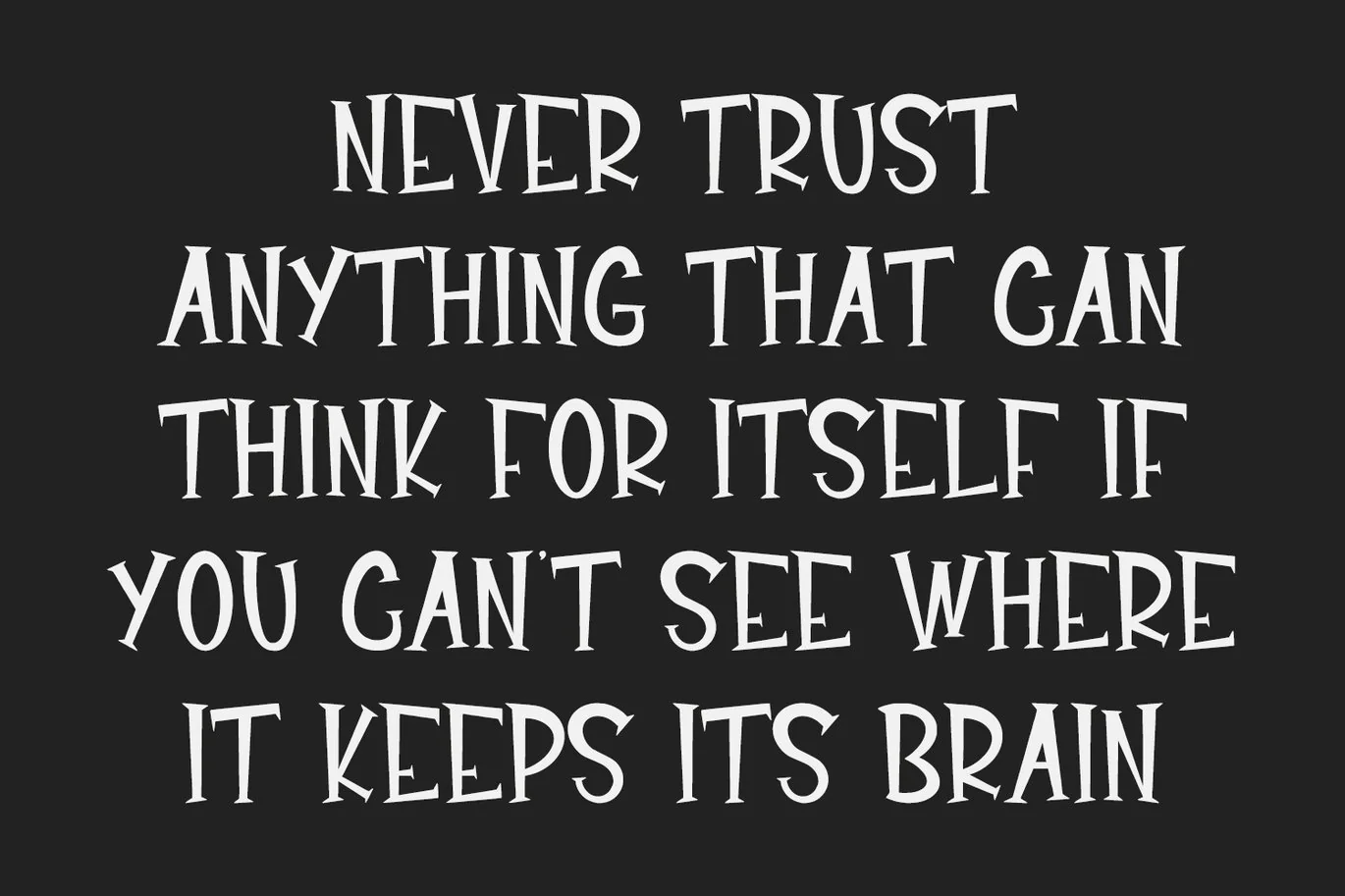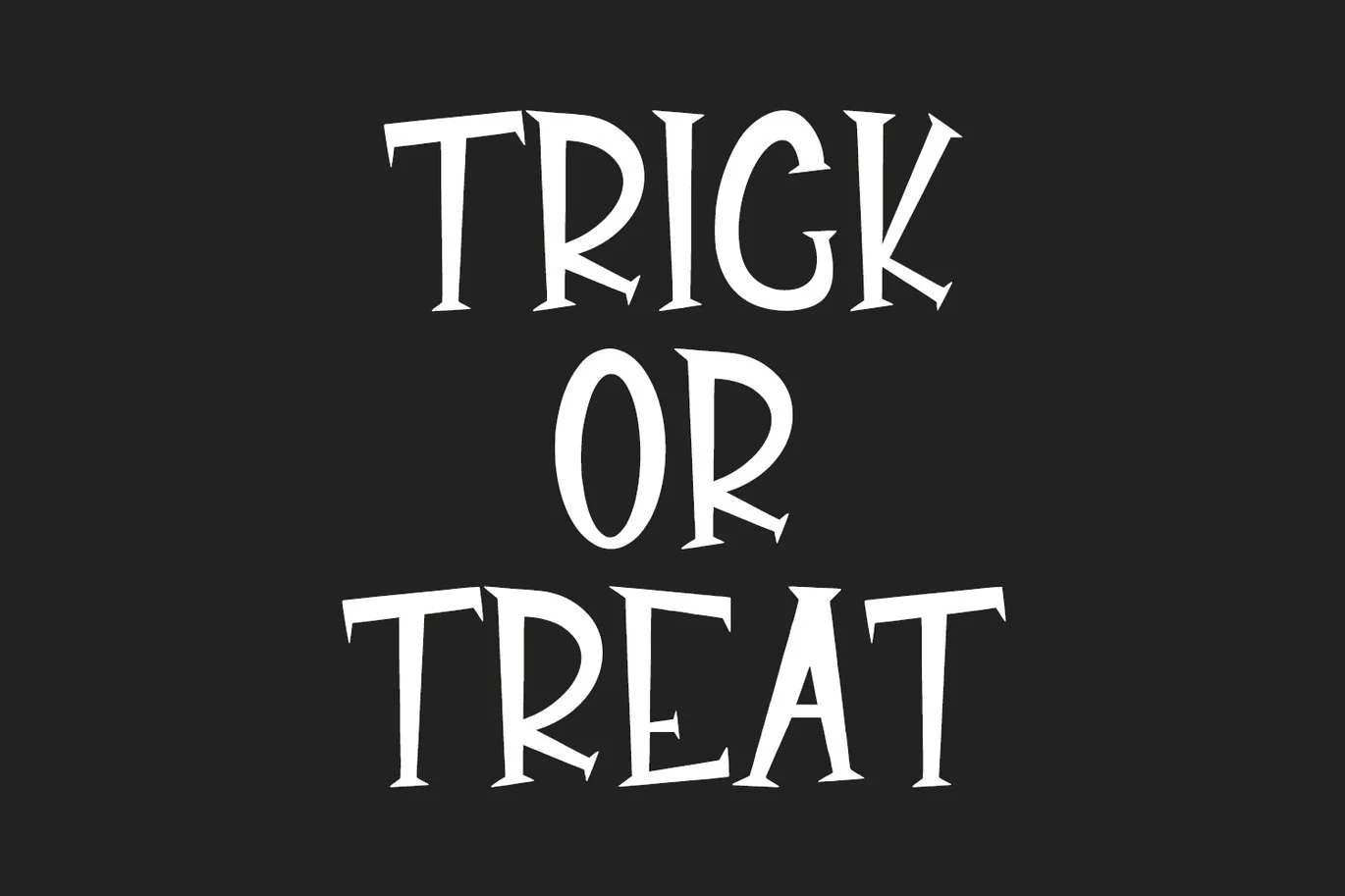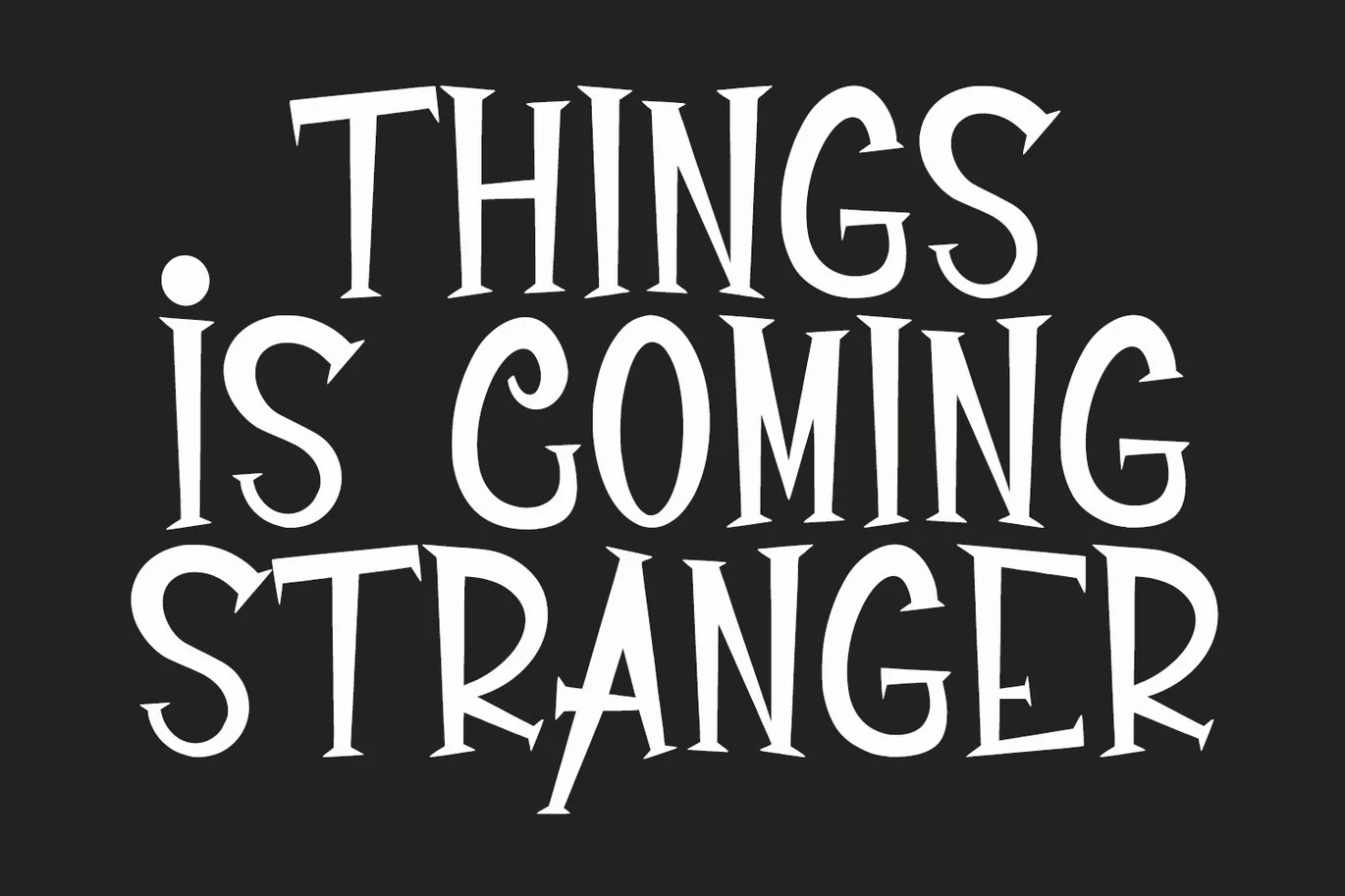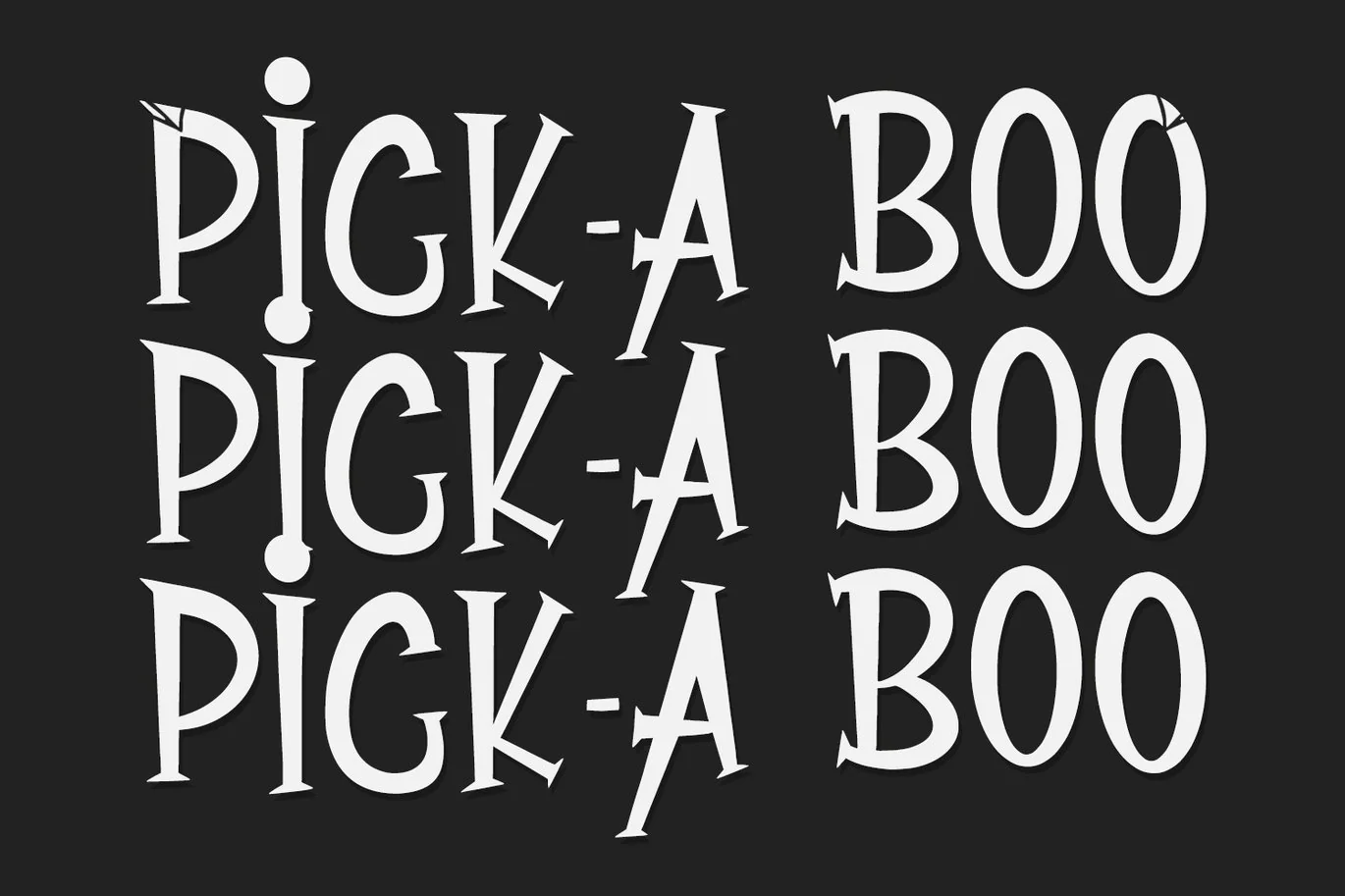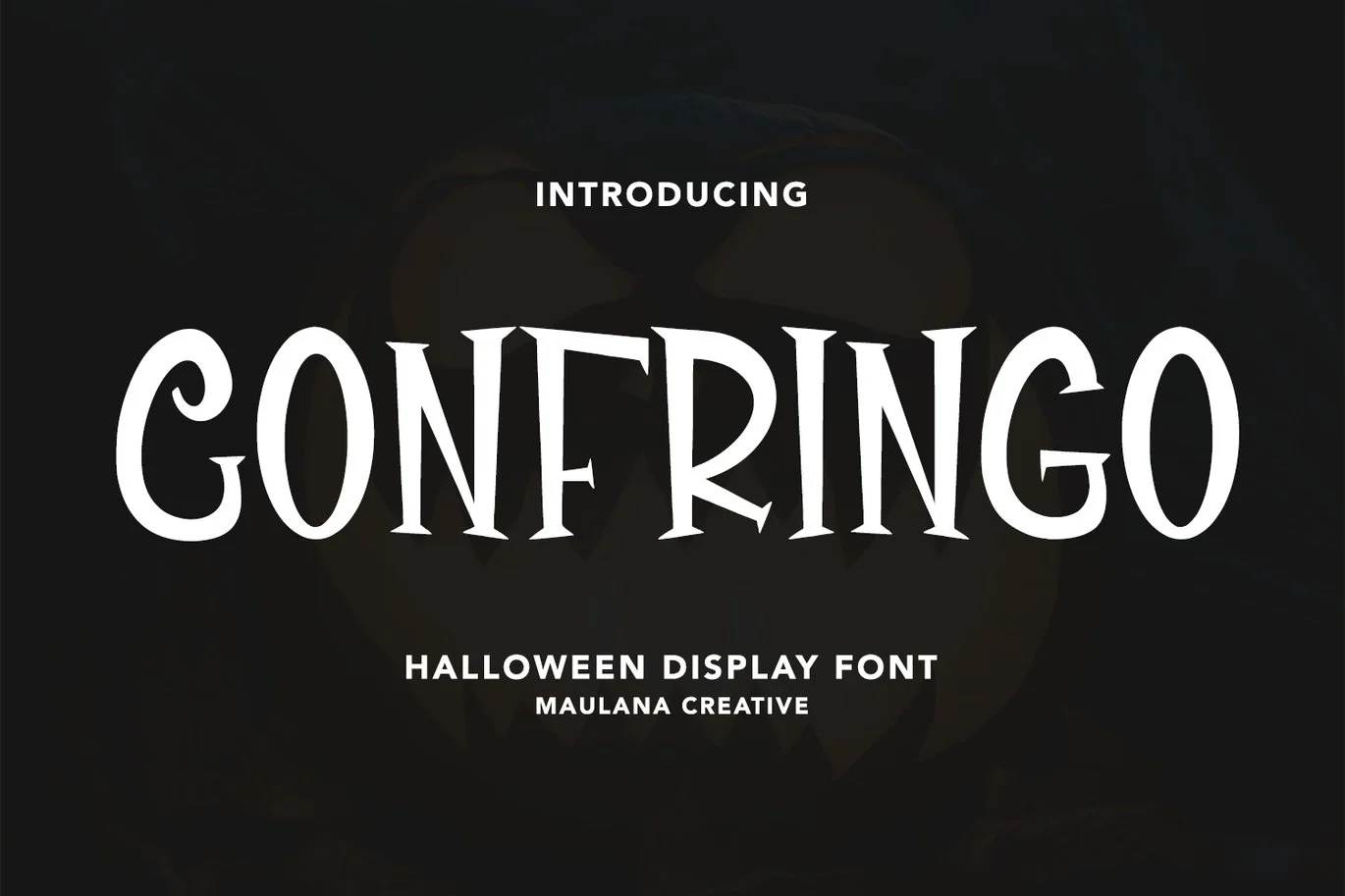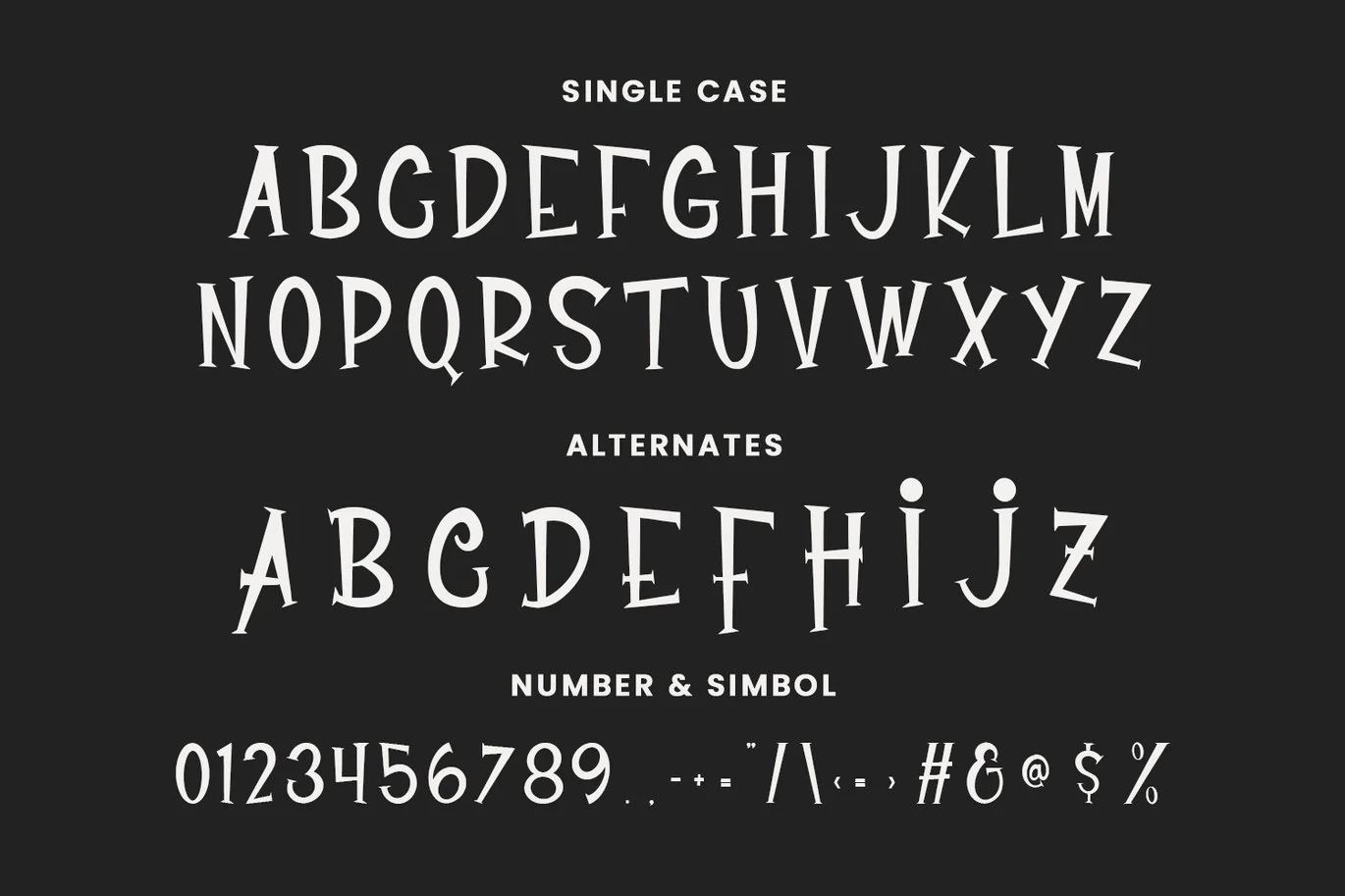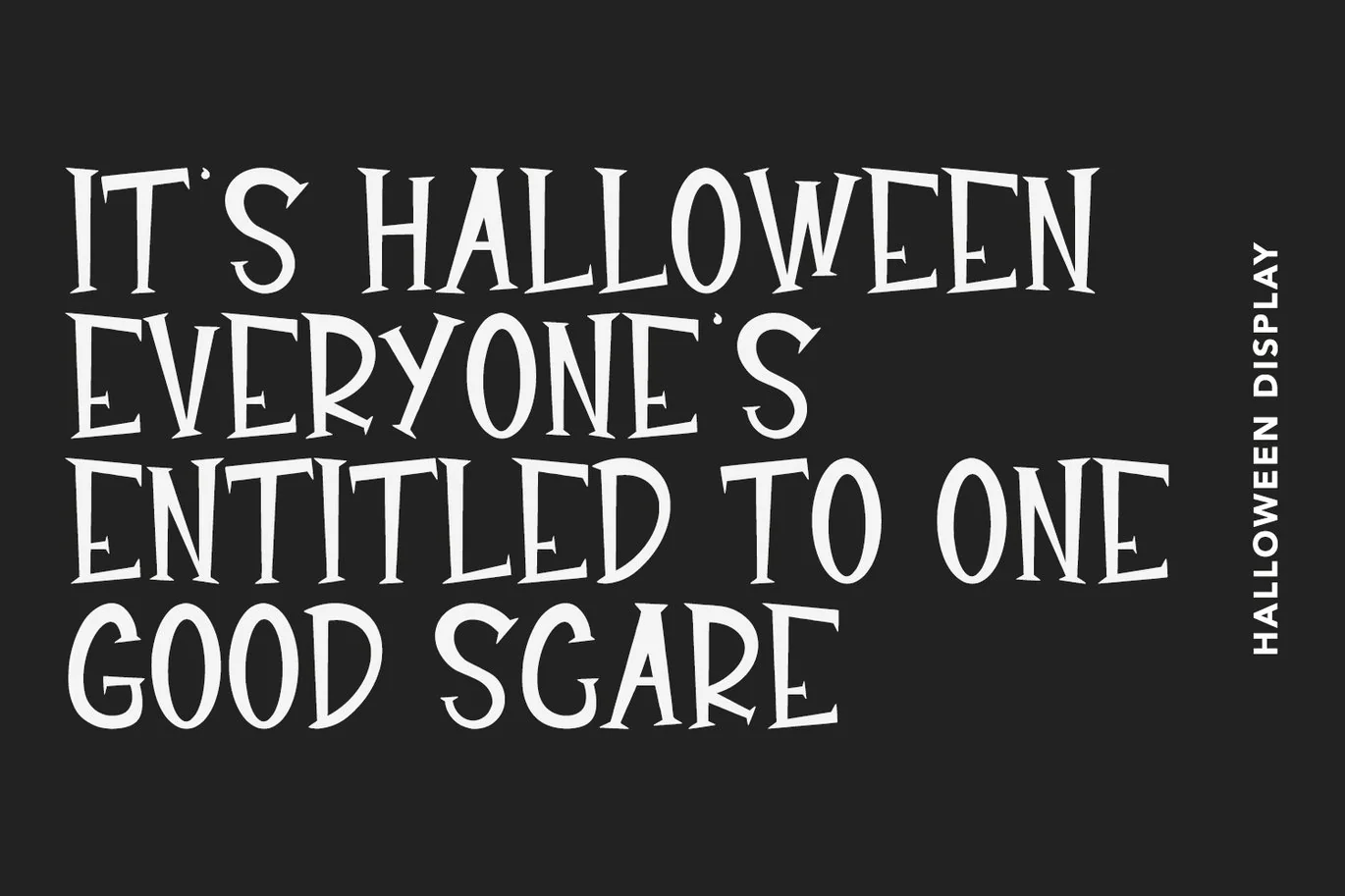
Confringo Halloween Display Font
Confringo halloween display font. Bold stroke, fun character with a bit of ligatures and alternates. To give you an extra creative work. Confringo font support multilingual more than 100+ language. This font is good for logo design, Social media, Movie Titles, Books Titles, a short text even a long text letter and good for your secondary text font with script or serif. Make a stunning work with Confringo halloween display font.